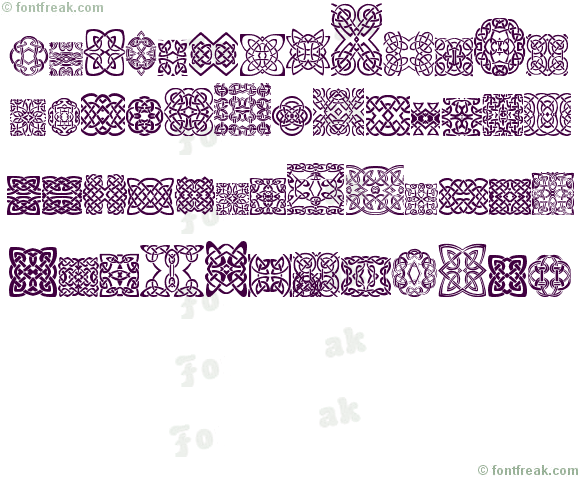
Sl Celtic Style
The Sl Celtic Style font by Sharon Loya is a stunning display typeface that captures the essence of Celtic artistry. This decorative font showcases intricate knotwork and swirling patterns, making it ideal for projects that seek to evoke a sense of tradition and heritage. With its moderate stroke weight and balanced contrast, the font maintains legibility while still offering a visually striking appearance. The spacing is thoughtfully designed, providing enough room between characters to enhance readability without sacrificing its ornate character.
This font is particularly well-suited for a variety of creative applications. It excels in wedding invitations, where its elegant flair can reflect the romantic themes of the occasion. Additionally, it can elevate movie posters, especially for films with historical or fantasy elements, drawing attention with its unique aesthetic. Restaurant menus benefit from its decorative qualities, particularly for establishments that emphasize traditional or cultural cuisine. Graphic designers will find it useful for creating branding materials that require a touch of authenticity and charm. Content creators can also leverage the Sl Celtic Style font in digital graphics, social media posts, and promotional materials to add a distinct flair.
What sets the Sl Celtic Style font apart is its ability to blend elegance with cultural significance. Its intricate designs resonate with audiences seeking authenticity, making it a standout choice for anyone looking to infuse their work with a touch of the mystical and timeless.